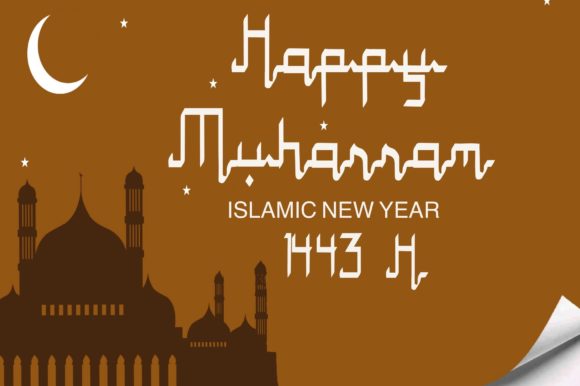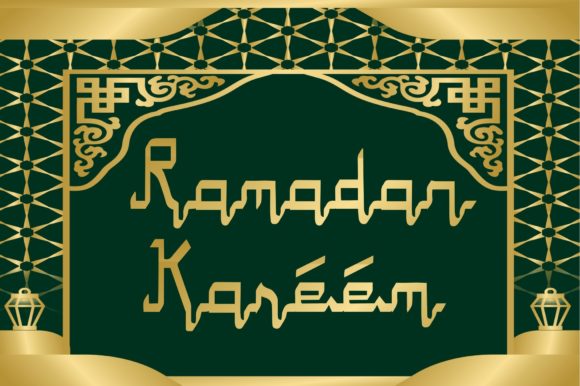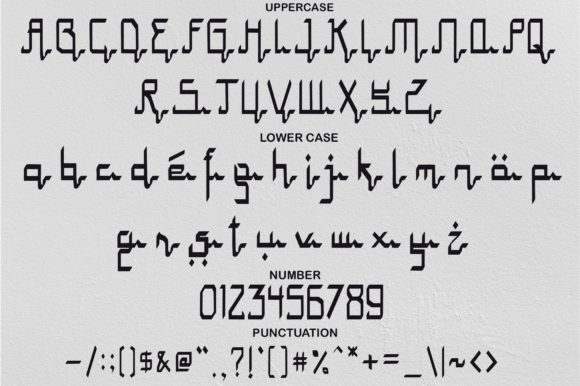
Introduction to Saqoro Font
Saqoro is a cool, whimsical and uniquely designed display font.
This original look will appeal to a wide range of crafty ideas, from letterheads and titles, to stationery .
Key Features of Saqoro Font